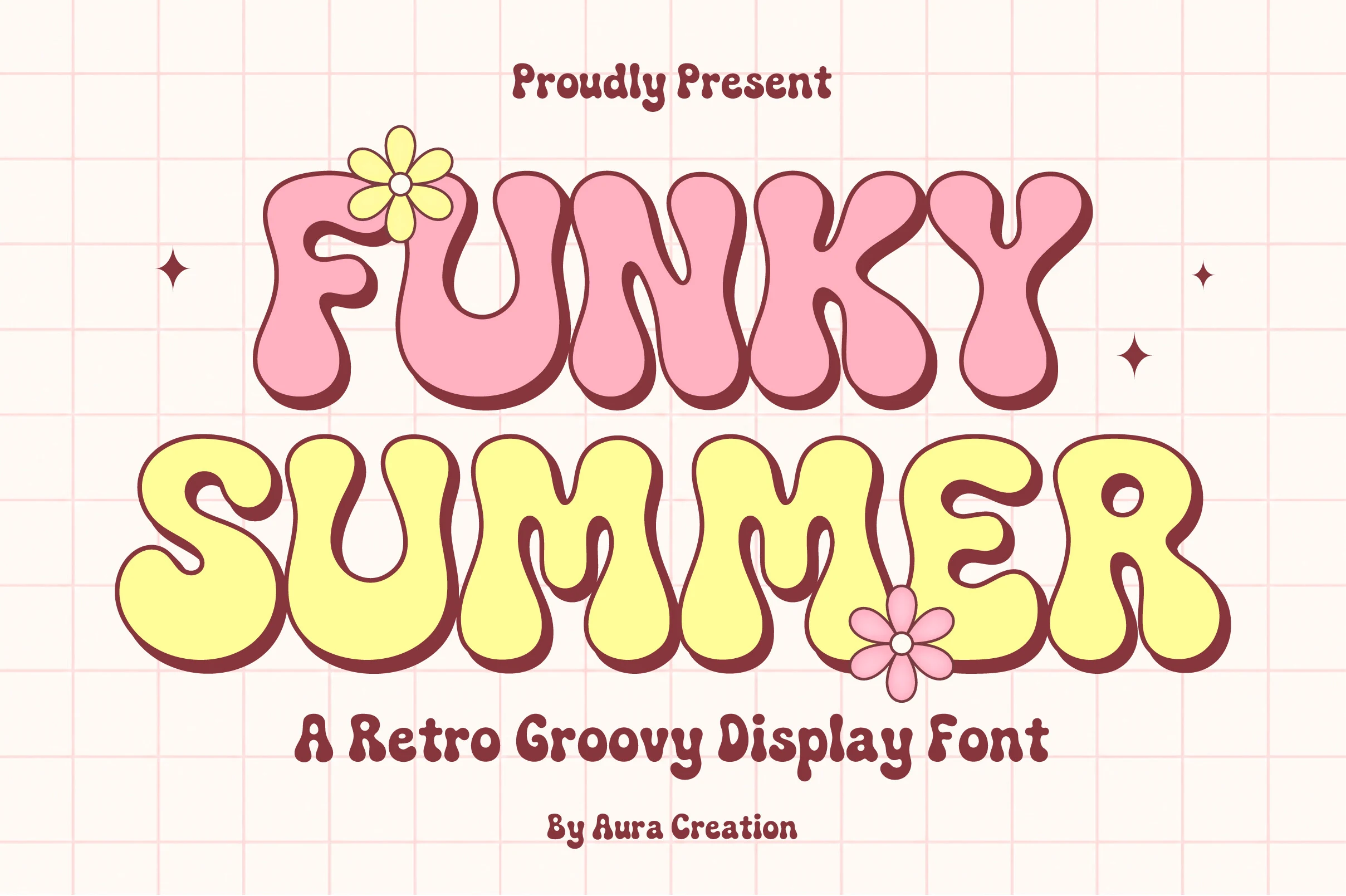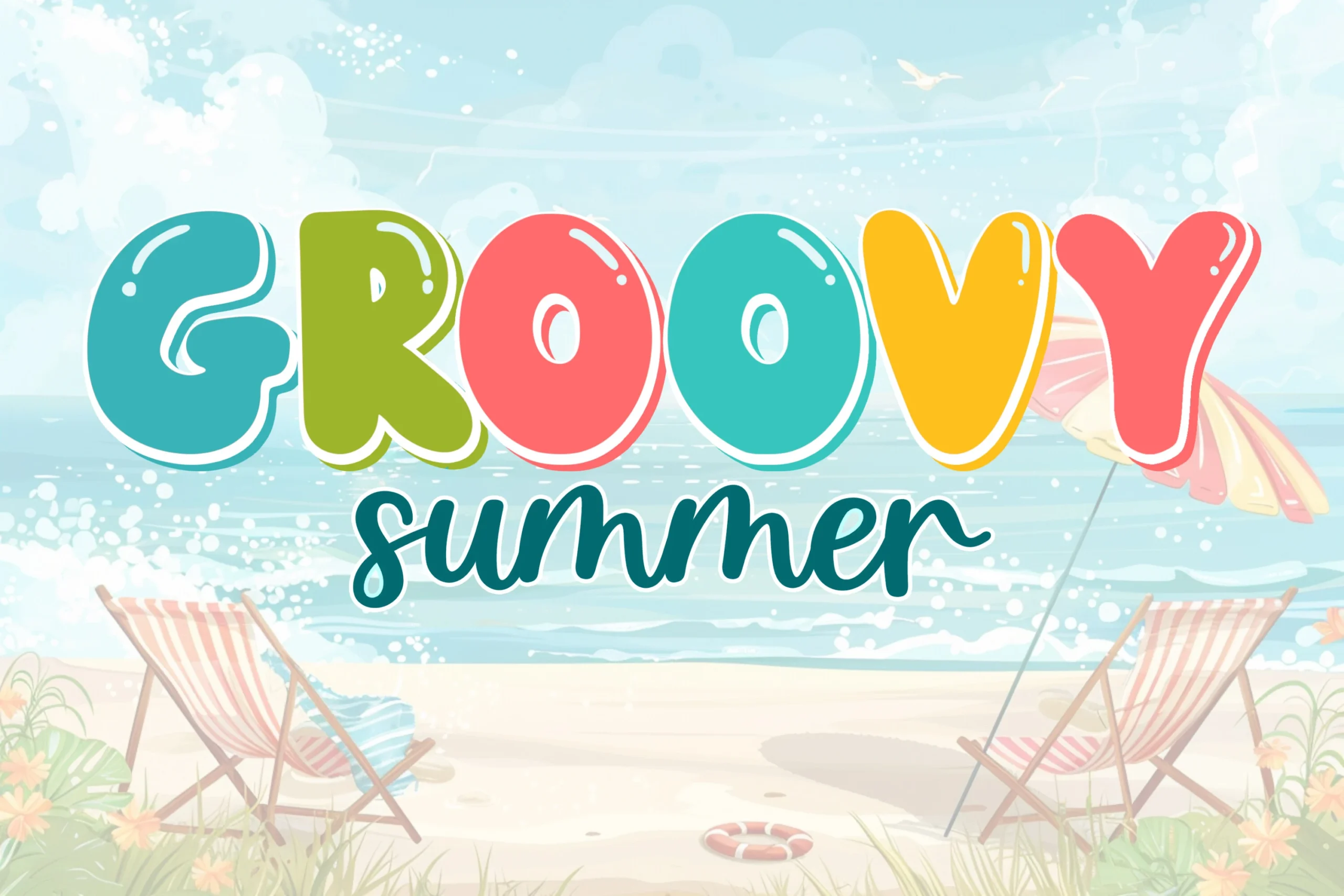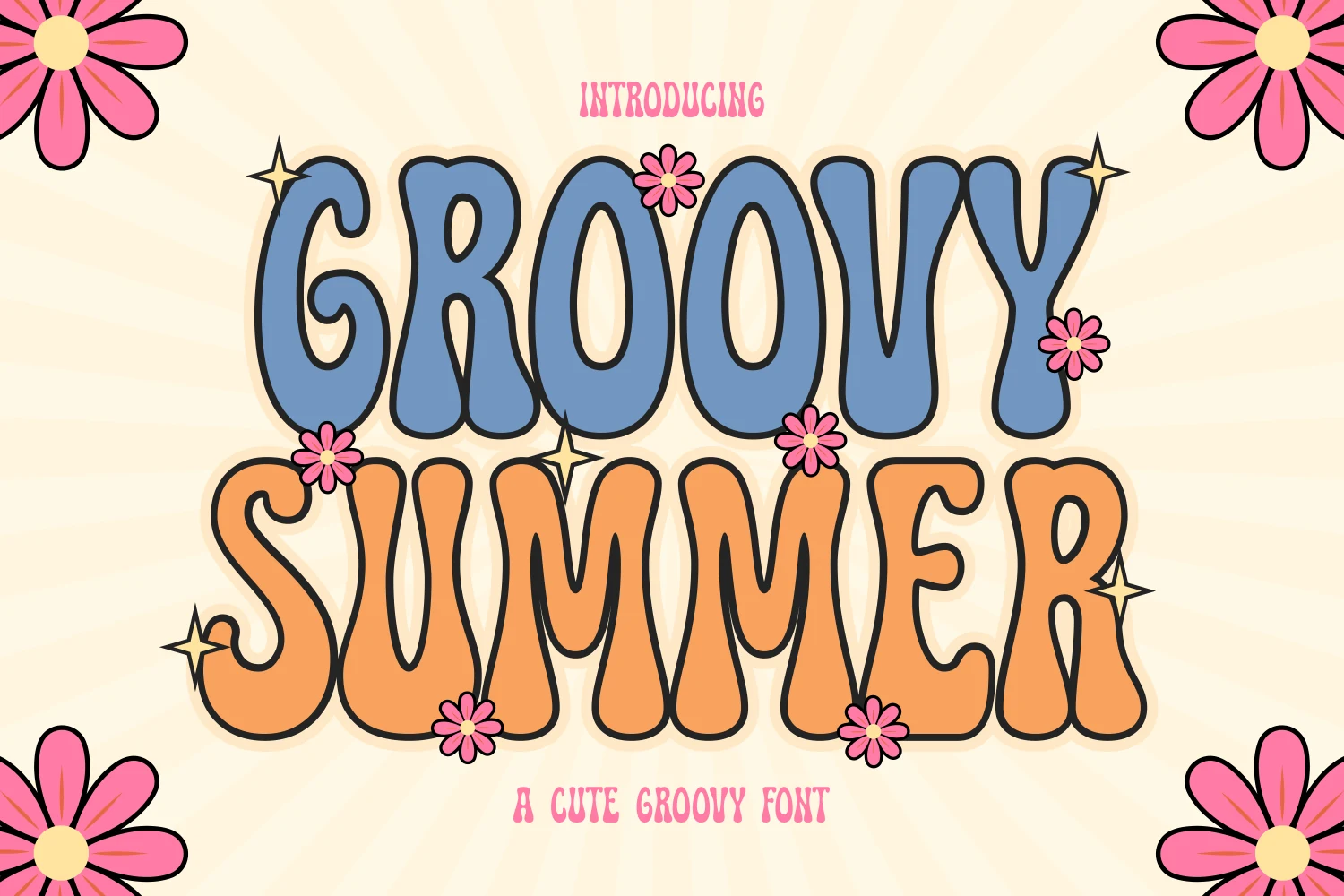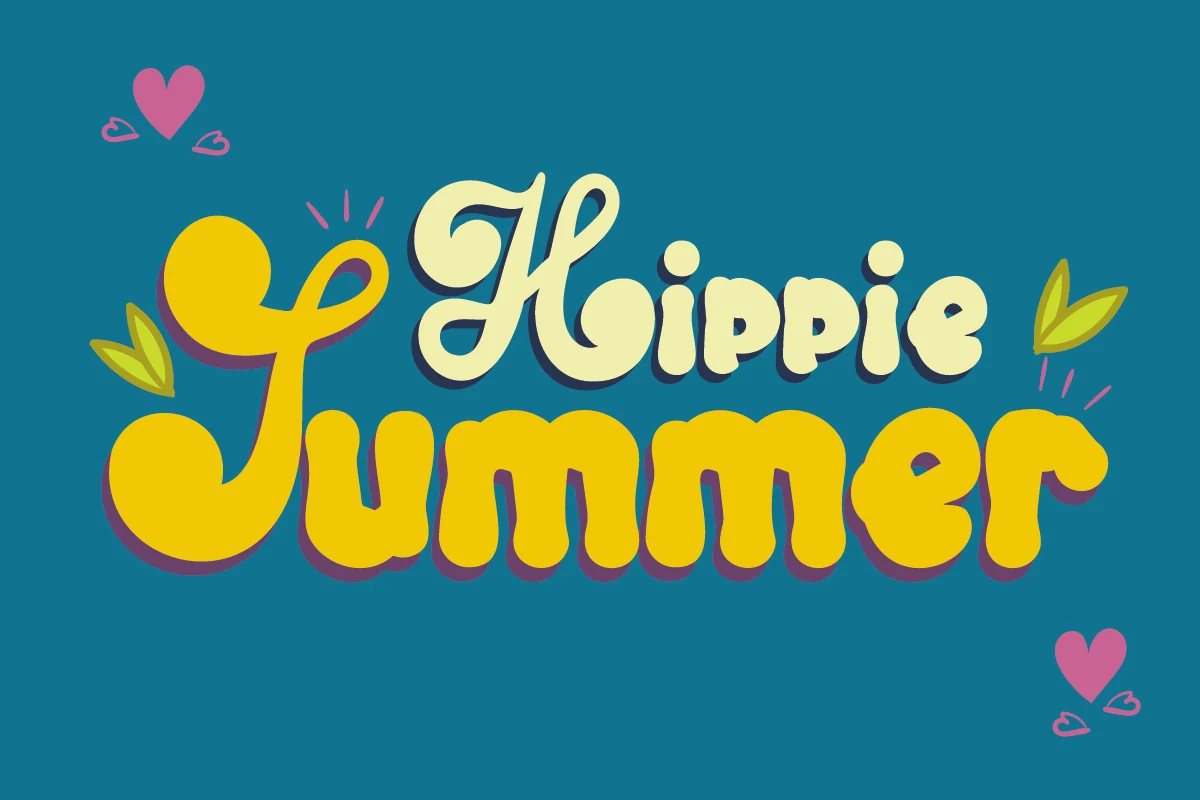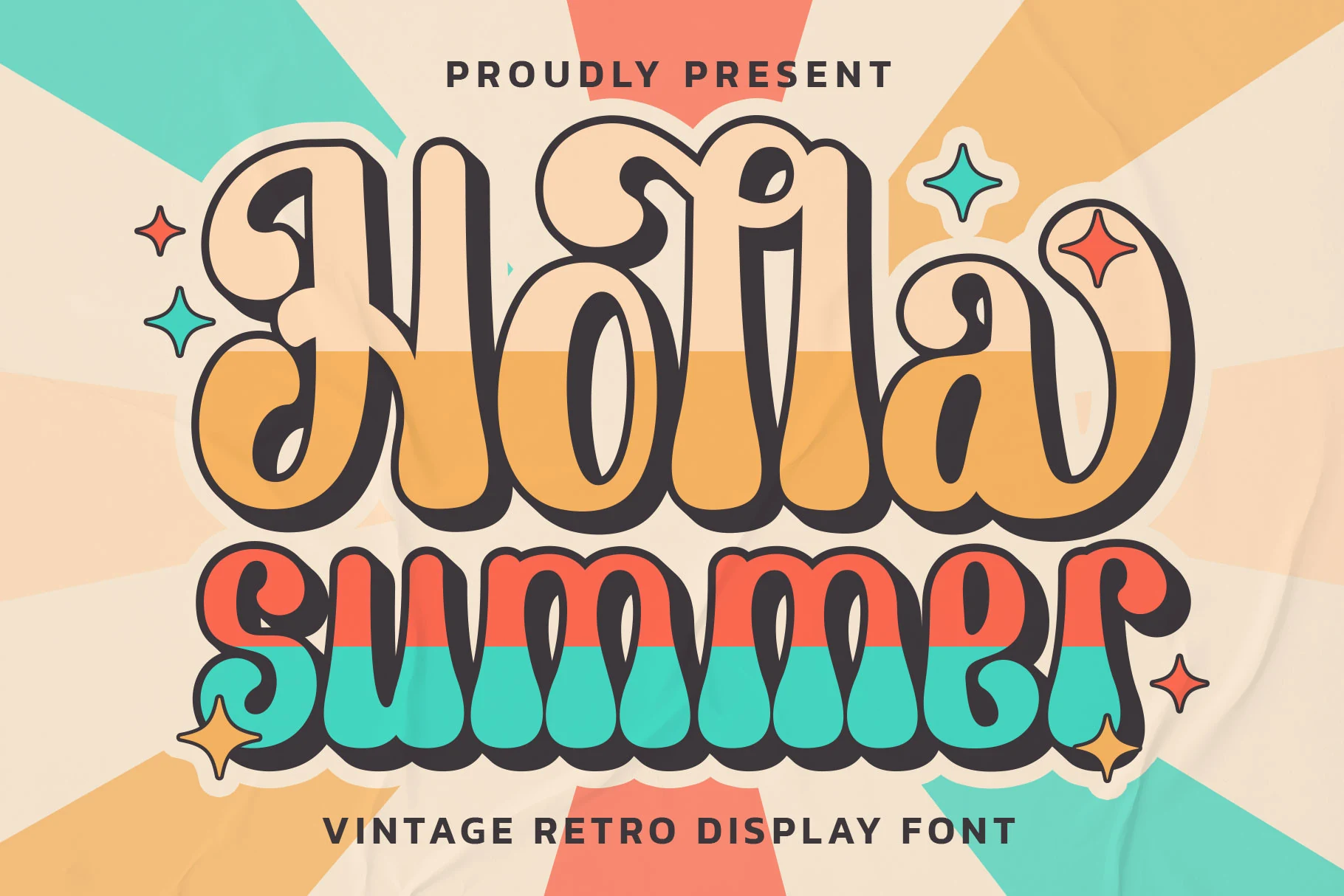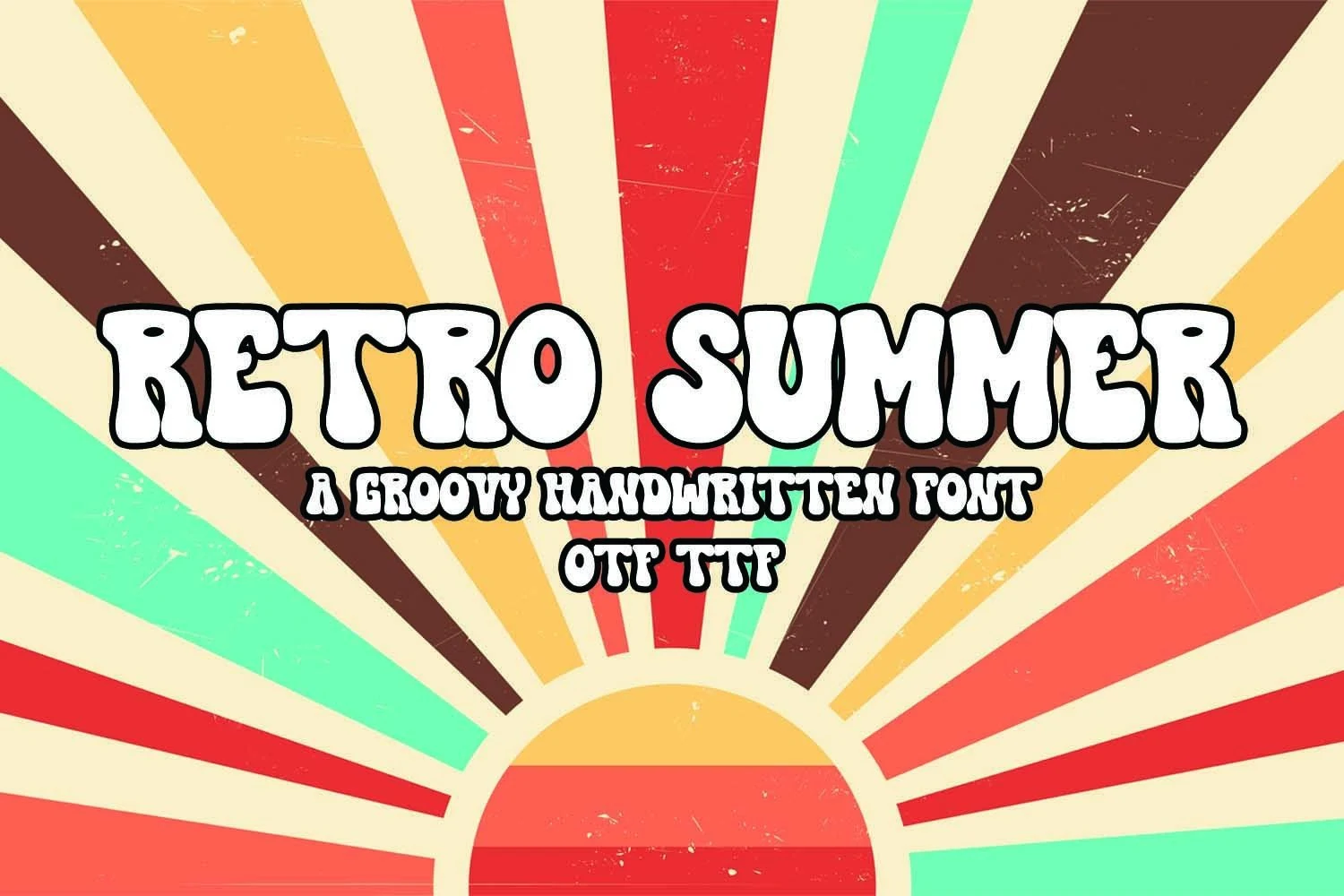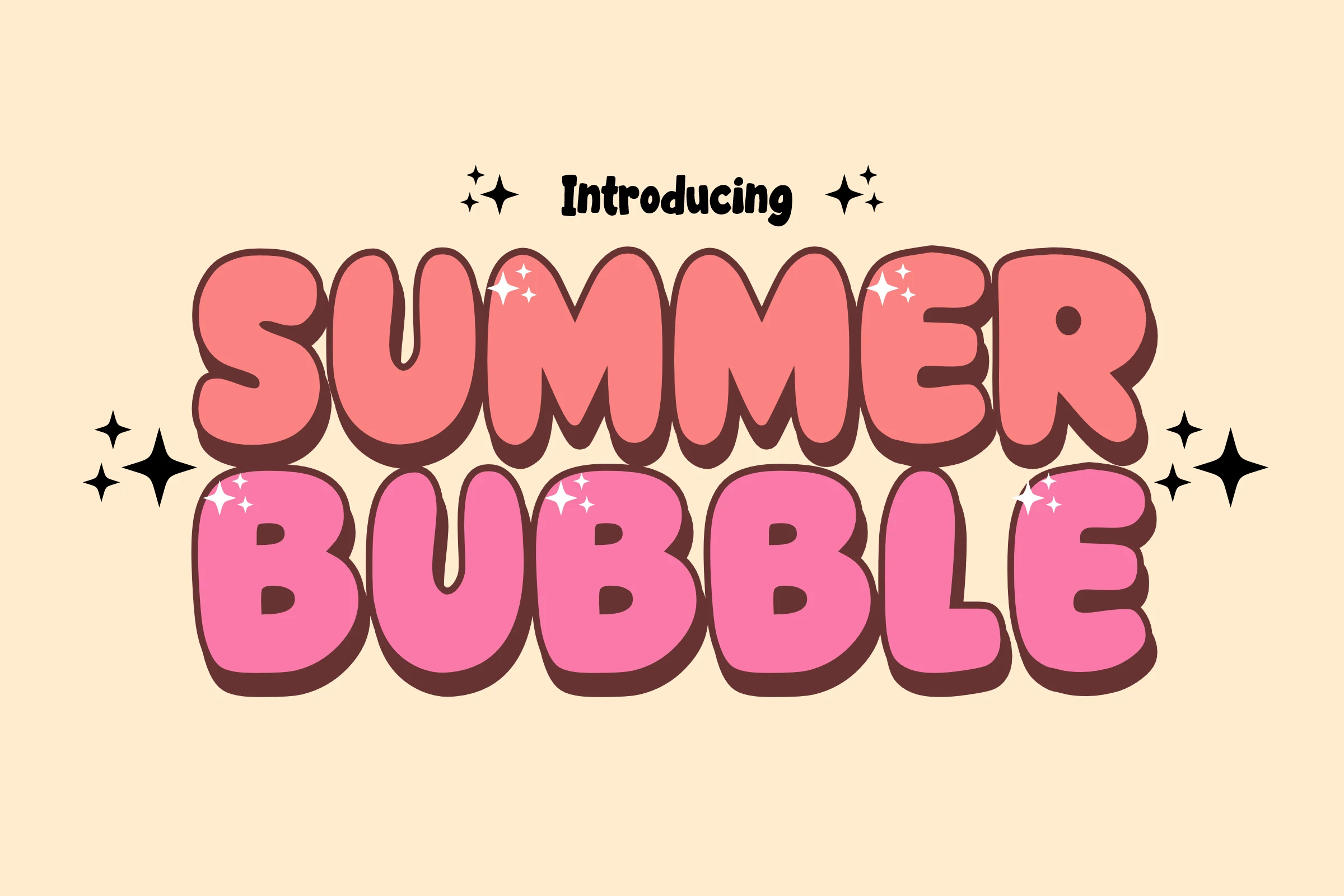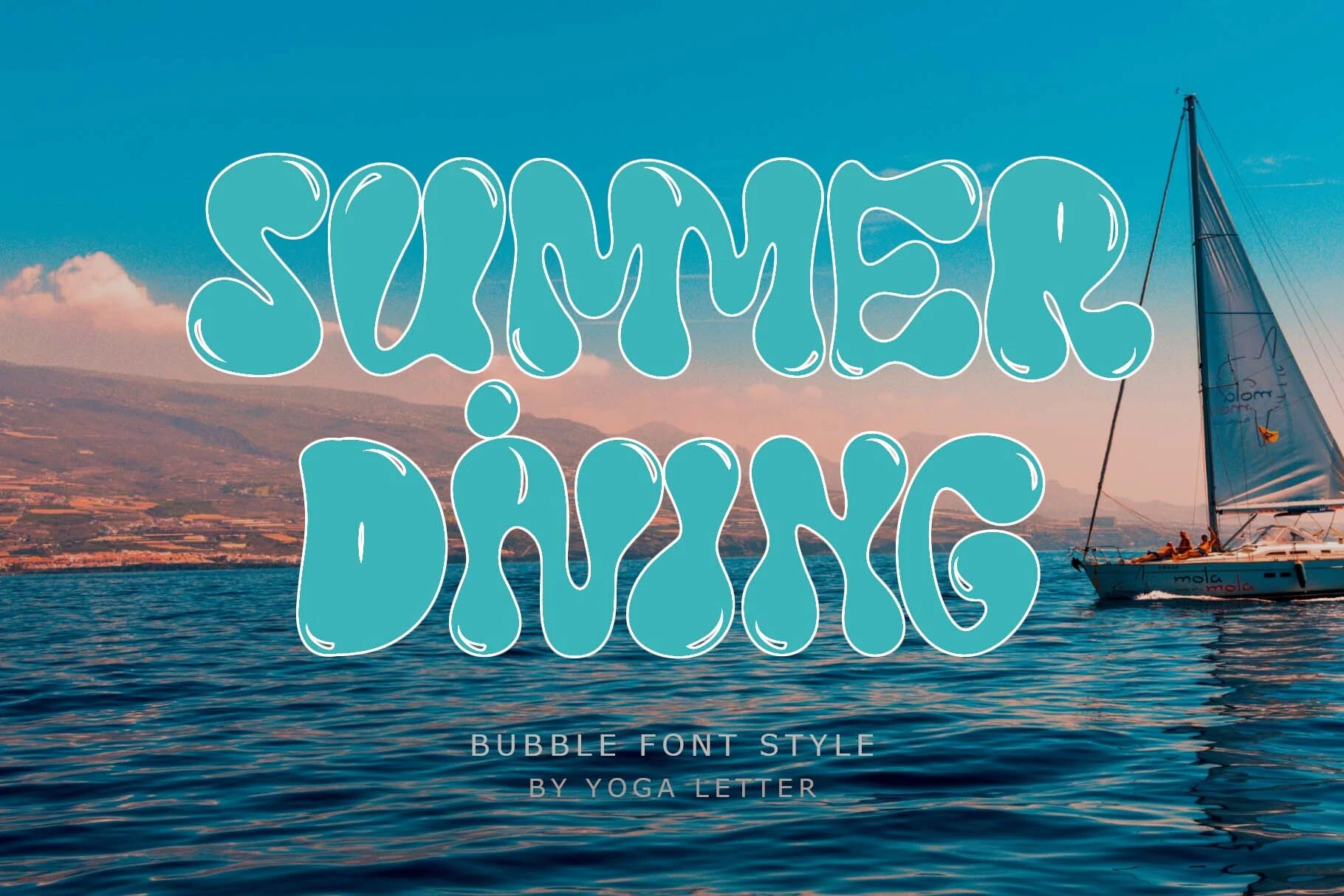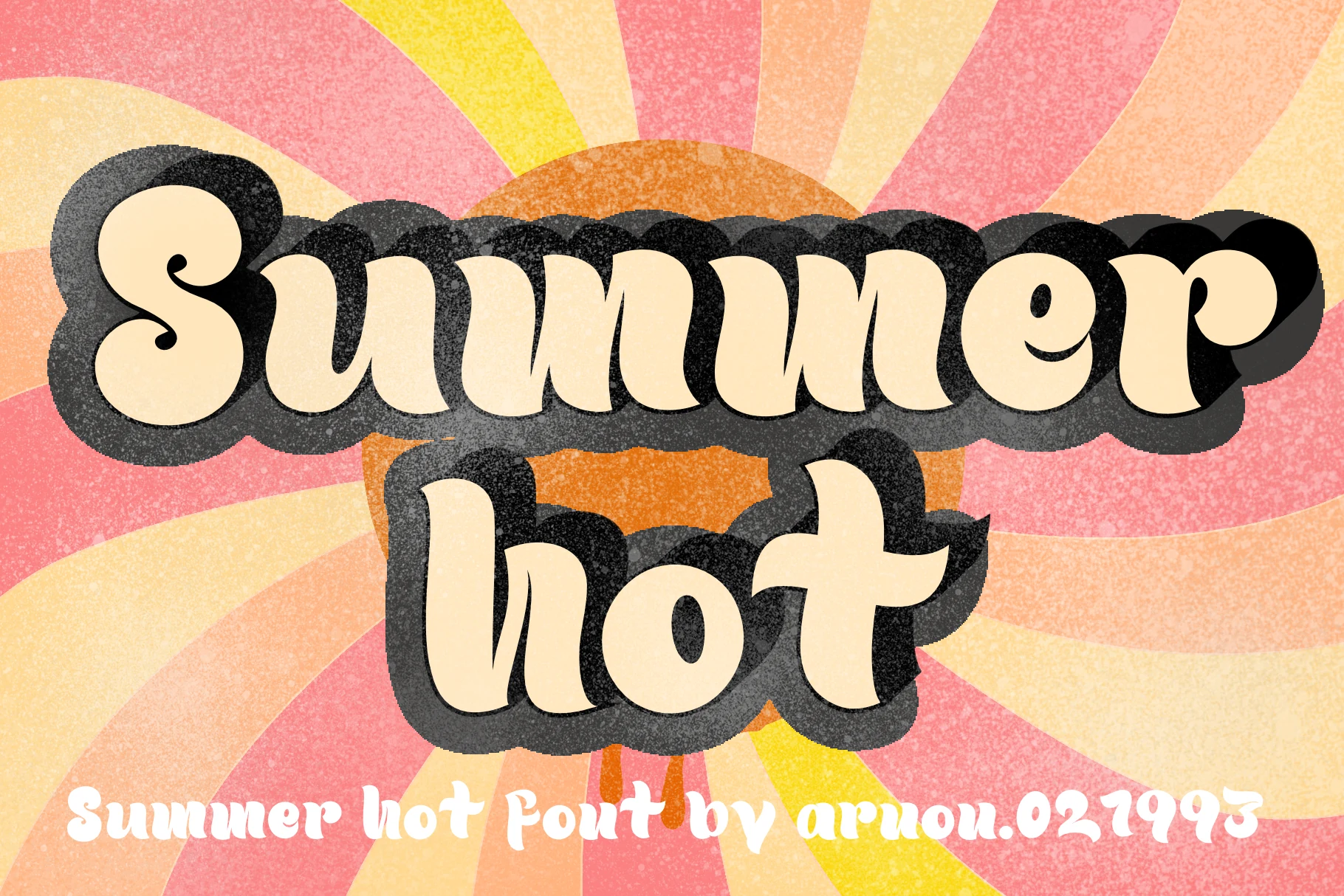
Preview collage of 14 summer groovy fonts with retro bubble lettering, hippie scripts, vintage shadows, colorful summer typography, and the article title.
14 Best Summer Groovy Fonts for Retro Posters & Merch
This collection is for designers, crafters, and brand owners who need summer groovy fonts for retro posters, stickers, T-shirts, invitations, packaging, and playful social graphics. It focuses on chunky bubble letters, hippie scripts, vintage shadows, and bright 70s-style display type.
Holla Summer Font
Holla Summer Font preview with vintage swash lettering, thick dark outline, and retro summer colors
Holla Summer Font has a vintage poster feel shaped by chunky stems, deep inner curves, and exaggerated swash endings that give the letters a lively, almost hand-painted rhythm. The thick dark outline keeps the decorative forms readable, while the soft rounded weight adds warmth instead of sharpness.
For Summer Groovy Fonts, this one stands out when the main phrase needs personality without losing impact at a glance. Use it as the hero line in a title hierarchy and keep the supporting text simpler, since the curled terminals and broad proportions already supply enough movement and retro character on their own.
Retro Summer Font
Retro Summer Font preview with chunky groovy white letters and black outline
Retro Summer Font has a chunky groovy build, with swollen verticals, rounded cut-ins, and uneven hand-drawn curves that keep the letters loose rather than polished. The thick black outline gives the white letter shapes strong separation, which helps the font hold up against busy retro patterns or saturated color palettes.
For Summer Groovy Fonts, this one works best when the wording is short and the title needs a 1970s poster feel. Keep the spacing fairly tight so the bubbly shapes read as one graphic unit, but avoid long sentences because the decorative rhythm and heavy outline are built for display text, not extended copy.
Summer Stussy Font
Summer Stussy Font preview with bold orange all-caps retro letters and flared 70s shapes
Summer Stussy Font leans fully into a 70s mood with tall all-caps forms, rounded corners, and bellbottom-style terminals that widen at the base. Those thick silhouettes and soft inner curves give the lettering a friendly funky rhythm, while the broad shapes make the words read as one strong retro statement.
If you’re curating Summer Groovy Fonts, this one works best in short headlines where its weight can anchor the whole composition. Give it room in the hierarchy and pair it with a cleaner supporting face, because the compact spacing and exaggerated proportions look strongest when they are not competing with other decorative text.
Summer Rainbow Font
Summer Rainbow Font preview with pastel bubble letters, thick black outline, and rounded playful shapes
Summer Rainbow Font uses oversized bubble letters with soft, inflated curves, uneven widths, and a thick black outline that makes each character feel like a sticker. The rounded counters and bouncy proportions keep the style cute and readable, even with the playful distortion across the letter shapes.
For Summer Groovy Fonts, this one is better for cheerful display words than serious branding. Keep the text short and let the outline carry the contrast; tight grouping works well for stacked titles, while extra decorative elements should stay secondary so the bulky letter rhythm remains clear.
Groovy Summer Font
Groovy Summer Font preview with colorful rounded bubble letters, glossy highlights, and casual script lettering
Groovy Summer Font pushes a beachy retro mood through inflated letterforms, rounded terminals, and a bouncy baseline that keeps the display text loose. The thick shapes stay readable because the counters are open and the letter silhouettes are simple, while the glossy highlight details add a bright sticker-like finish.
In a set of Summer Groovy Fonts, this one is strongest for cheerful titles that need color, scale, and immediate recognition. Use the bold rounded caps for the main word and keep secondary lettering lighter or more fluid; that contrast lets the chunky display rhythm lead without making the layout feel crowded.
Groovy Summer Font
Groovy Summer Font preview with colorful rounded retro letters and glossy bubble shapes on a beach scene
Groovy Summer Font leans into a cheerful retro look with chunky bubble letters, rounded corners, and soft counters that keep the word shapes bold but friendly. The inflated proportions and clean outline give it that toy-like bounce, so the lettering feels bright and graphic rather than heavy.
Within Summer Groovy Fonts, this one works especially well when you want a playful accent that carries the whole composition. Short titles, cover lines, and front-facing packaging suit it best, and the color-blocked, low-contrast shapes hold together nicely when you give the headline enough scale and keep supporting text simpler.
Choose chunky bubble fonts when the design needs loud retro energy, hippie scripts for softer handmade titles, and vintage shadow styles for posters or merch with stronger depth. These 14 summer groovy fonts work best as headline type, so keep supporting text clean and let the main lettering carry the mood.